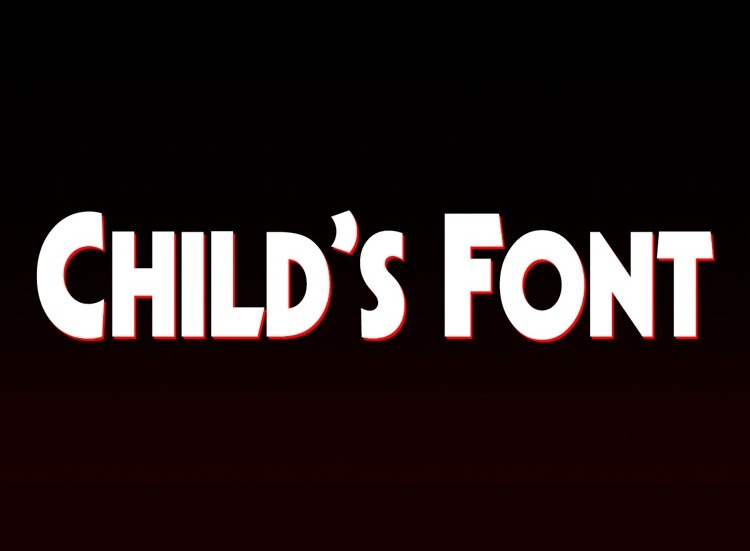
Child’s Font
Child’s Display Font is an all caps font that has a very bold body. Child’s Bold Sans Serif Display Font is perfect for your up coming projects. Such as logo branding, editorial design, sport design, game / gaming industry, music cover and poster, technology website design, modern advertising design, modern poster quote, book/cover title, special events and any more.